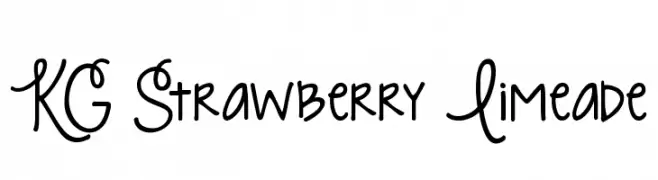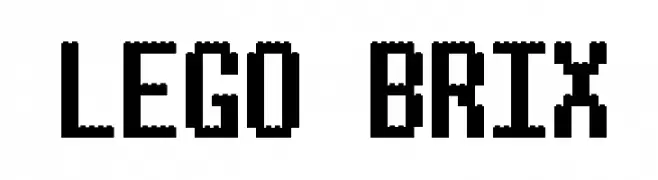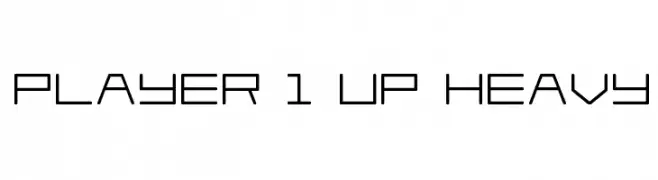
A pixelated, geometric font with a retro digital aesthetic.
A bold, angular, and geometric font with a futuristic style.
A bold, collegiate-style serif font with strong, block-like serifs.
A playful, pixelated outline font with a retro, biscuit-like style.
A playful, handwritten font with bold uppercase and flowing lowercase letters.
A geometric, angular font with a futuristic and digital aesthetic.